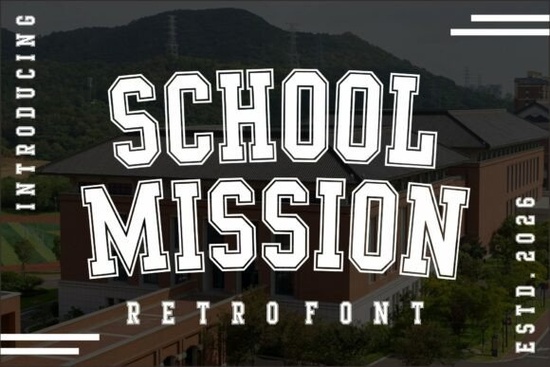
If you're working on a school spirit project, sports branding, or retro-inspired apparel, you’ve probably looked for a font that feels authentic without looking dated. That’s where School Mission Font comes in a varsity-style display typeface rooted in classic American school and athletic aesthetics. With its bold slab serifs, outlined letterforms, and subtle inner shadow, it delivers both nostalgia and visual impact, making it especially useful for designers creating logos, posters, or merchandise that need to stand out.
Unlike generic bold fonts, School Mission carries a distinctive collegiate energy. The contrast between its solid core and crisp outline gives each character depth, which works particularly well when printed on tees, banners, or digital graphics. It’s not just about looking “old-school” it’s about tapping into a visual language that instantly communicates teamwork, tradition, and pride.
What kinds of projects work best with School Mission?
This font shines in contexts where authority and enthusiasm need to coexist. Think:
- Sports team logos – especially for high schools or amateur leagues wanting that varsity look
- Event posters – pep rallies, homecoming games, or alumni gatherings
- Apparel designs – hoodies, jerseys, or fan gear with bold names or slogans
- Social media graphics – quote cards or announcements that need immediate visual weight
- Educational branding – school newsletters, yearbook covers, or classroom decor
Because of its strong silhouette, School Mission pairs beautifully with simple layouts and primary colors like navy, red, or gold. Avoid overcomplicating your design let the font do the heavy lifting.
How does it compare to other varsity-style fonts?
If you’ve browsed Creative Fabrica’s display font collection, you might have seen alternatives like Blockton Varsity or Varsity Reborn. While those offer clean, athletic vibes, School Mission stands out with its added dimensionality the inner shadow and double-line effect give it more texture and presence, especially at larger sizes.
For a grittier, weathered take, Rustpress leans into vintage signage, while Vertical Dentist offers a more condensed, urban feel. But if your goal is classic American school spirit with a polished finish, School Mission hits that sweet spot between heritage and readability.
Tips for using School Mission effectively
Because it’s a display font, School Mission isn’t meant for body text or small captions. Stick to headlines, short phrases, or single words where legibility and style matter most. Here’s how to get the best results:
- Use ample spacing. Tight kerning can make the outlines blend together. Give letters room to breathe.
- Limit color complexity. Two-color setups (like white text with a dark outline) often work better than multi-layer effects.
- Avoid pairing with other decorative fonts. Choose a clean sans-serif (like Helvetica or Montserrat) for supporting text.
- Test print mockups. The outline effect can behave differently on fabric vs. paper always preview before final production.
Also, remember that retro doesn’t mean cluttered. A bold word in School Mission against a plain background often makes a stronger statement than a busy layout.
Who should consider this font?
If you run a print-on-demand shop selling school-themed gifts, create custom jerseys for local teams, or design promotional materials for educational institutions, this font saves time and adds authenticity. Crafters making iron-on vinyl decals or sublimation mugs for graduation season will also find it versatile. Even hobbyists building personal projects like a family reunion tee or a neighborhood softball team logo can achieve pro-level results without advanced design skills.
Just keep in mind: School Mission works best when your audience already connects with varsity culture. If your brand leans modern-minimalist or ultra-casual, another option from Creative Fabrica’s display category might suit you better like the streamlined look of School Mission’s own siblings in the catalog.
- Is my project focused on schools, sports, or retro Americana?
- Will the text be large enough to show the outline detail?
- Have I tested it alongside my chosen colors and layout?
If you answered yes to most of these, School Mission could be the reliable, character-rich font your next design needs.